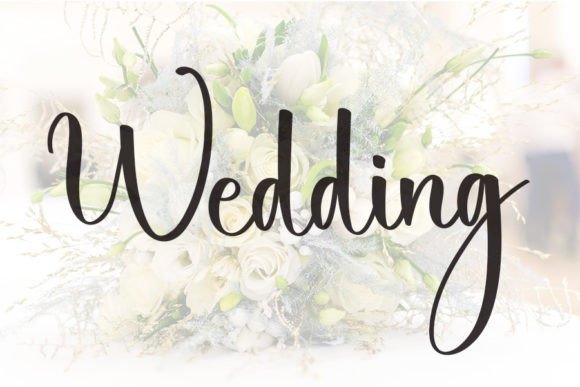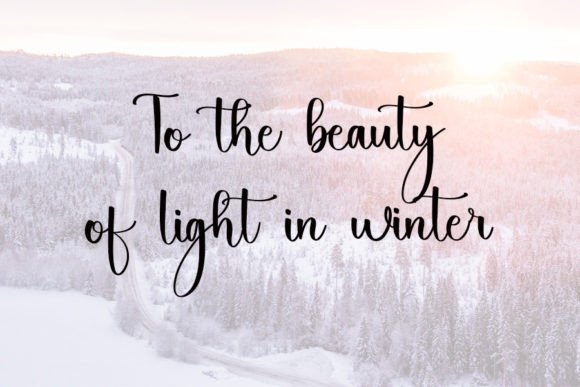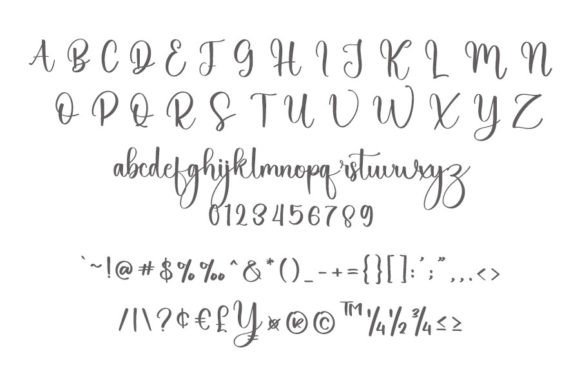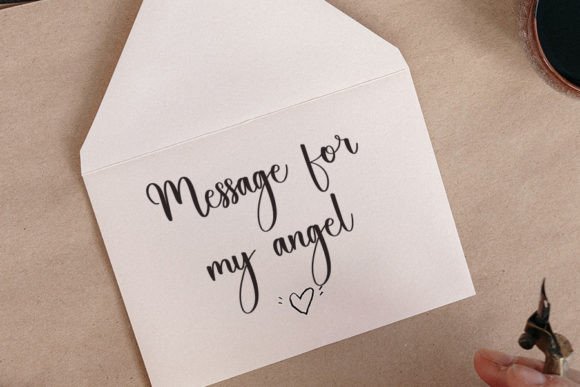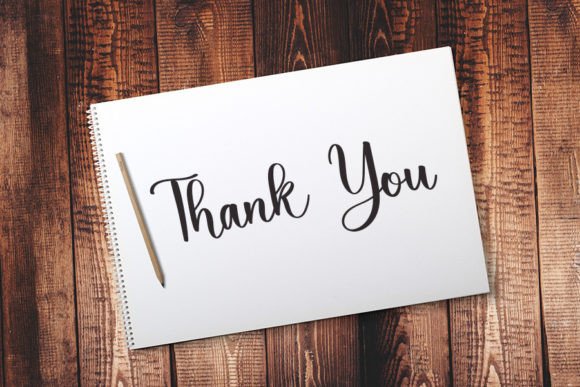
Switch Font
A Trendy Handwritten Script with Timeless Elegance
Switch Font is a trendy handwritten script that blends a contemporary atmosphere with the elegance of timeless classic calligraphy. With its impeccable form and balanced strokes, this font brings a touch of sophistication and artistic flair to your projects. Whether you’re designing wedding invitations, logos, branding materials, or social media content, the Switch  ensures your designs stand out with refinement and charm.
Perfect for Wedding Invitations and Special Occasions
For wedding invitations and special occasion stationery, the Switch Font is a perfect choice. Whether you’re creating RSVP cards, thank-you notes, or save-the-dates, this font provides a romantic, elegant touch to your designs. Its classic calligraphy-inspired style brings a sense of luxury and timeless beauty, making it ideal for weddings, anniversaries, and other memorable occasions. The Switch Font will ensure that your special event materials are both charming and sophisticated.
Ideal for Logos and Branding Projects
For logos and branding projects, the Switch Font offers a unique, refined style that enhances your brand identity. Whether you’re designing a luxury brand logo, personal brand, or corporate materials, this font brings an artistic, high-end feel to your branding. The Switch  is perfect for businesses in industries like fashion, beauty, and lifestyle, offering your branding a personalized and distinctive appearance that stands out.
Great for Greeting Cards and Invitations
For greeting cards and invitations, the Switch Font adds an elegant, timeless touch to your designs. Whether you’re creating birthday cards, thank-you notes, or holiday greetings, this font ensures your cards feel luxurious and personalized. Its delicate handwritten style enhances both formal and casual occasions, giving your designs a charming, sophisticated feel. The Switch  will help your greeting cards and invitations stand out with grace and elegance.
Ideal for Product Packaging and Labels
For product packaging and labels, the Switch Font brings a premium, refined look to your designs. Whether you’re designing product labels, gift packaging, or seasonal items, this font adds a personalized, elegant touch to your branding. The Switch Font is perfect for luxury products, artisan goods, and custom gifts, ensuring your products stand out with an exclusive and timeless appeal.
Versatile, Legible, and Elegant
Despite its delicate handwritten design, the Switch  remains legible and easy to use. Its well-spaced characters and consistent strokes ensure that your text remains clear and readable, even for longer passages or smaller sizes. Whether you’re using it for headlines, captions, or body text, this font strikes the perfect balance between creativity and readability, making it suitable for a wide range of design applications from print to digital media.
Add Elegance and Class to Your Designs with Switch Font
If you’re looking for a trendy handwritten font that adds a romantic, elegant touch to your designs, the Switch  is the perfect choice. Whether you’re designing wedding invitations, logos, greeting cards, or social media posts, this font will help you create memorable, refined designs that stand out. Let the Switch Font bring a timeless, graceful touch to your projects and leave a lasting impression with its elegance and sophistication.